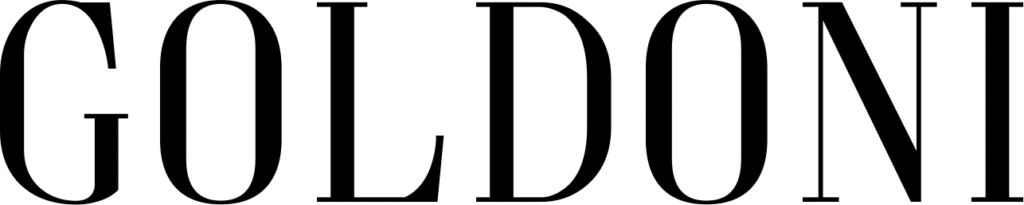
Goldoni Font
Goldoni is an elegant font that conveys a sense of luxury and presents your texts with a classic look. This didone serif font only supports upper case characters and you can also use it for different Latin-based languages like Italian and French.
Buongiorno! Inspired by Italian luxury brands Goldoni is a simple yet elegant titling serif with vertical emphasis. This font was designed with a classic, ultra clean look that
is liberally spaced to highlight contrast between negative space and the thin nature of the characters. Use Goldoni for a luxury logo, newspaper display, headline, or movie poster.